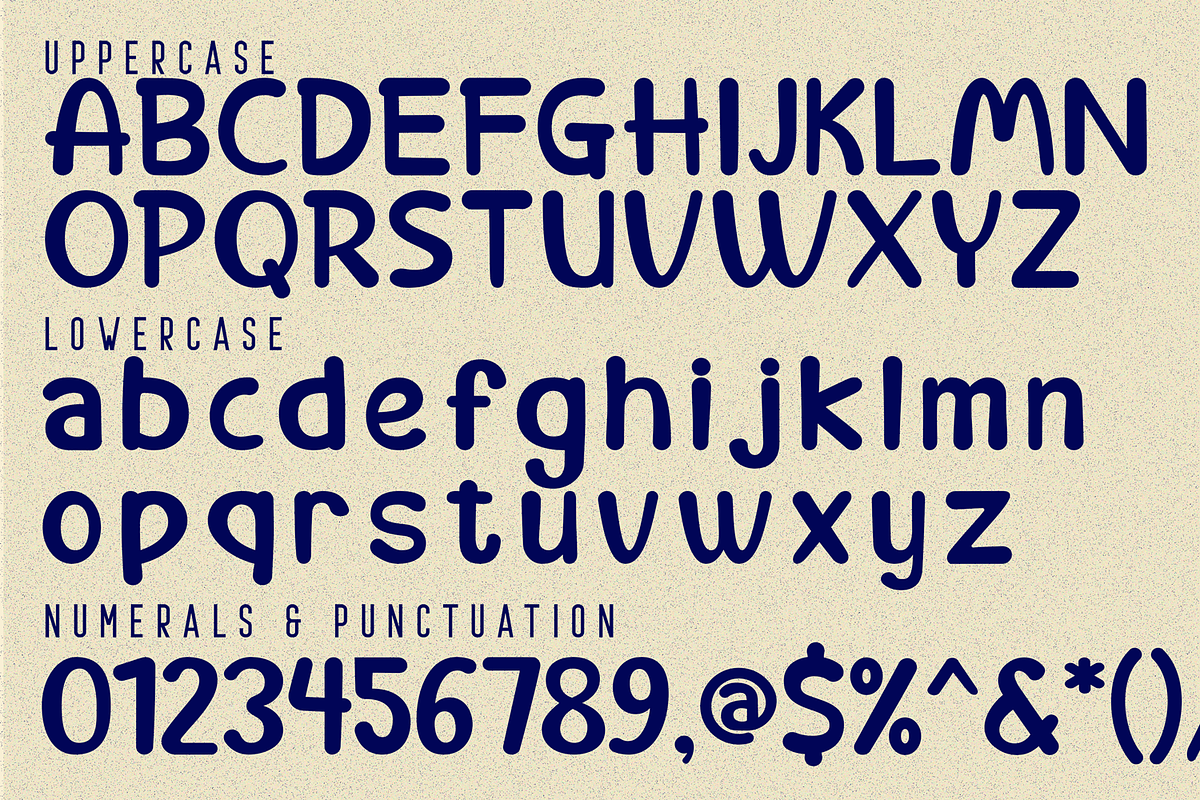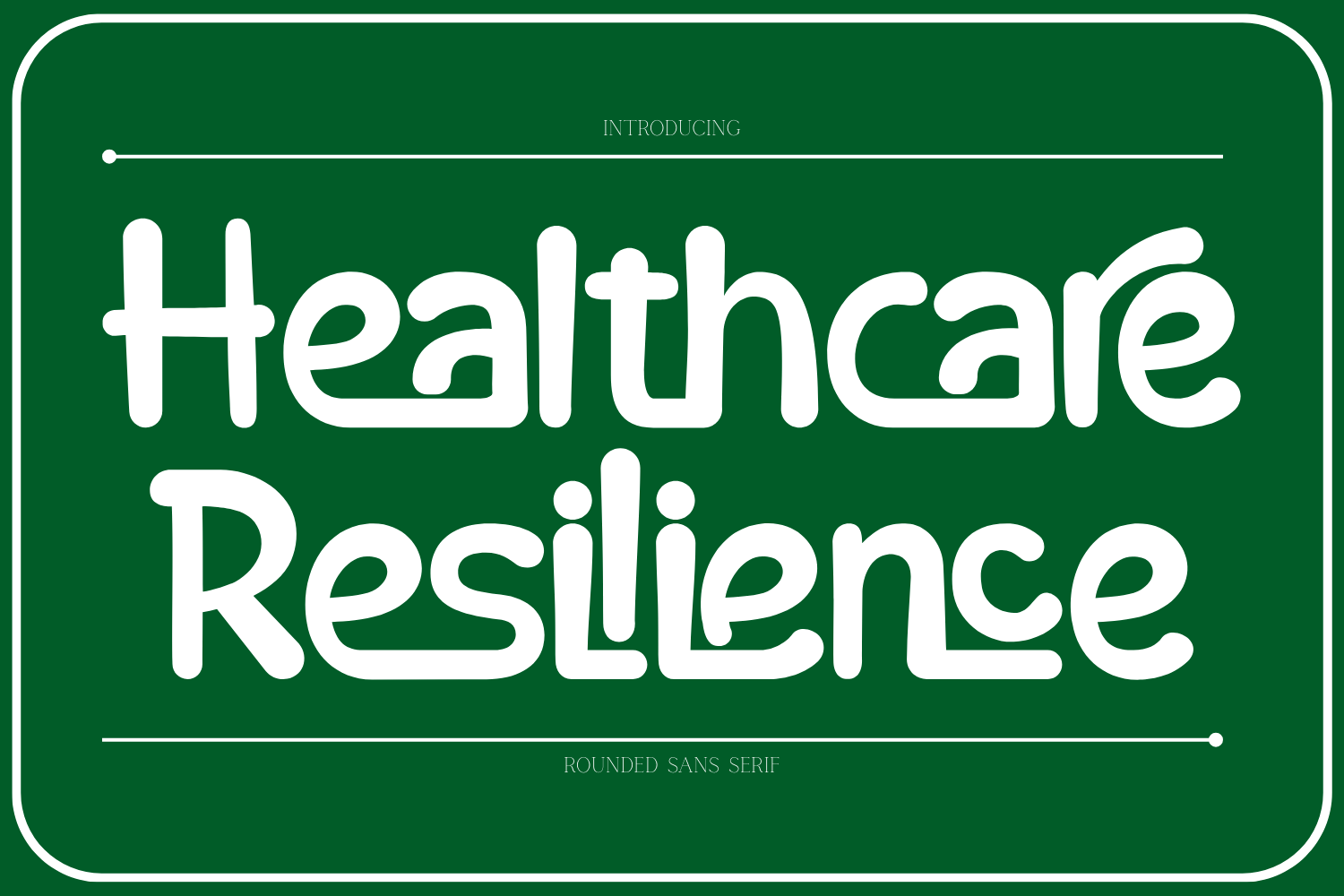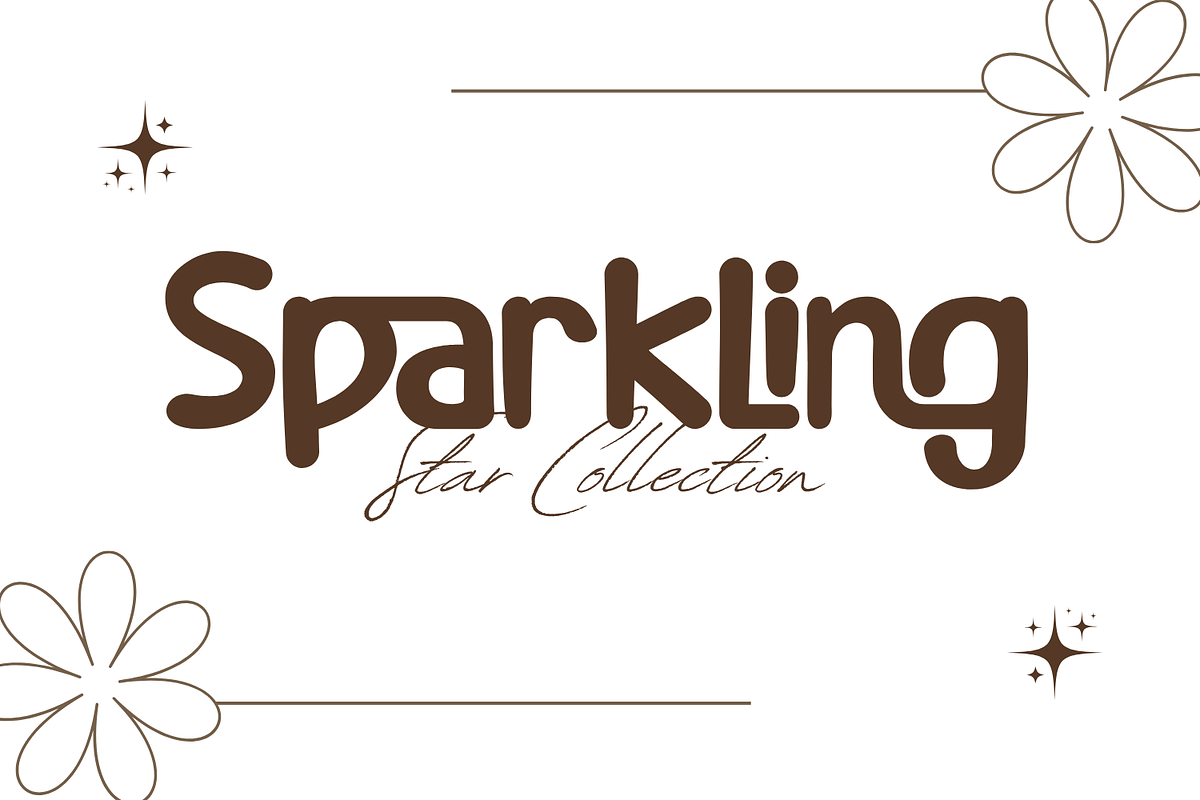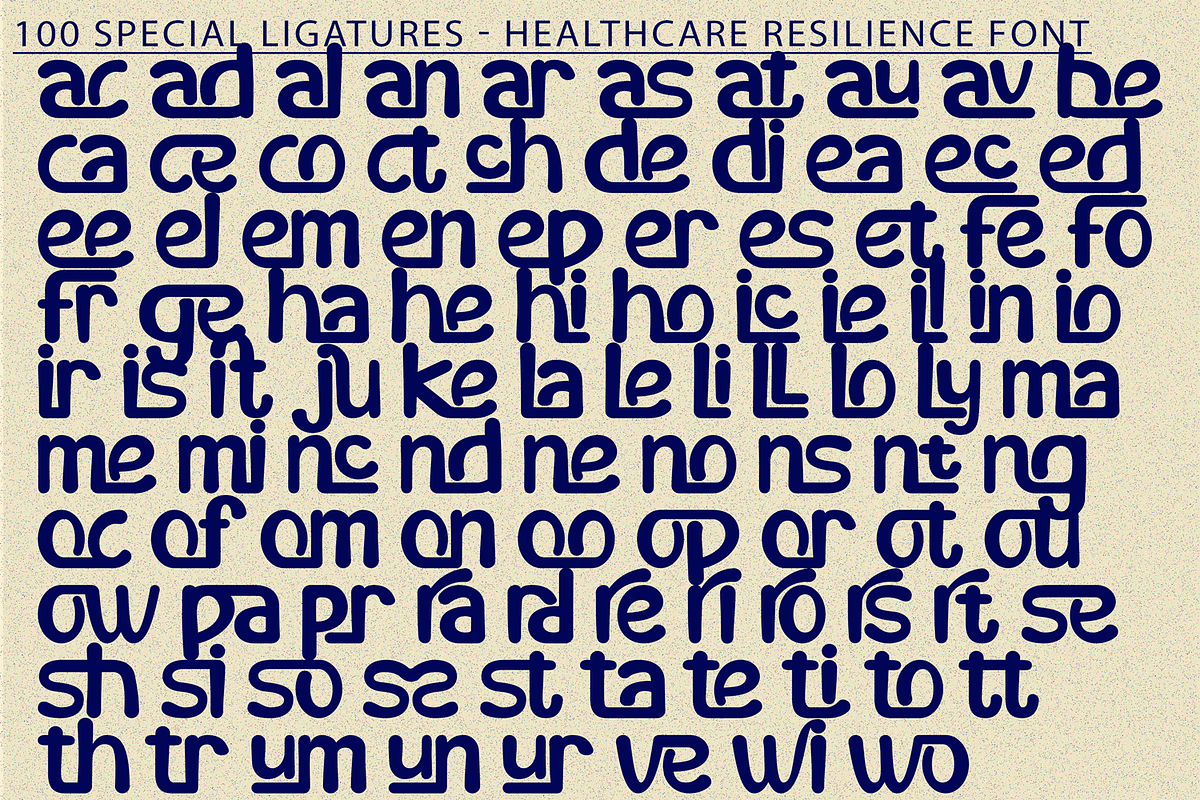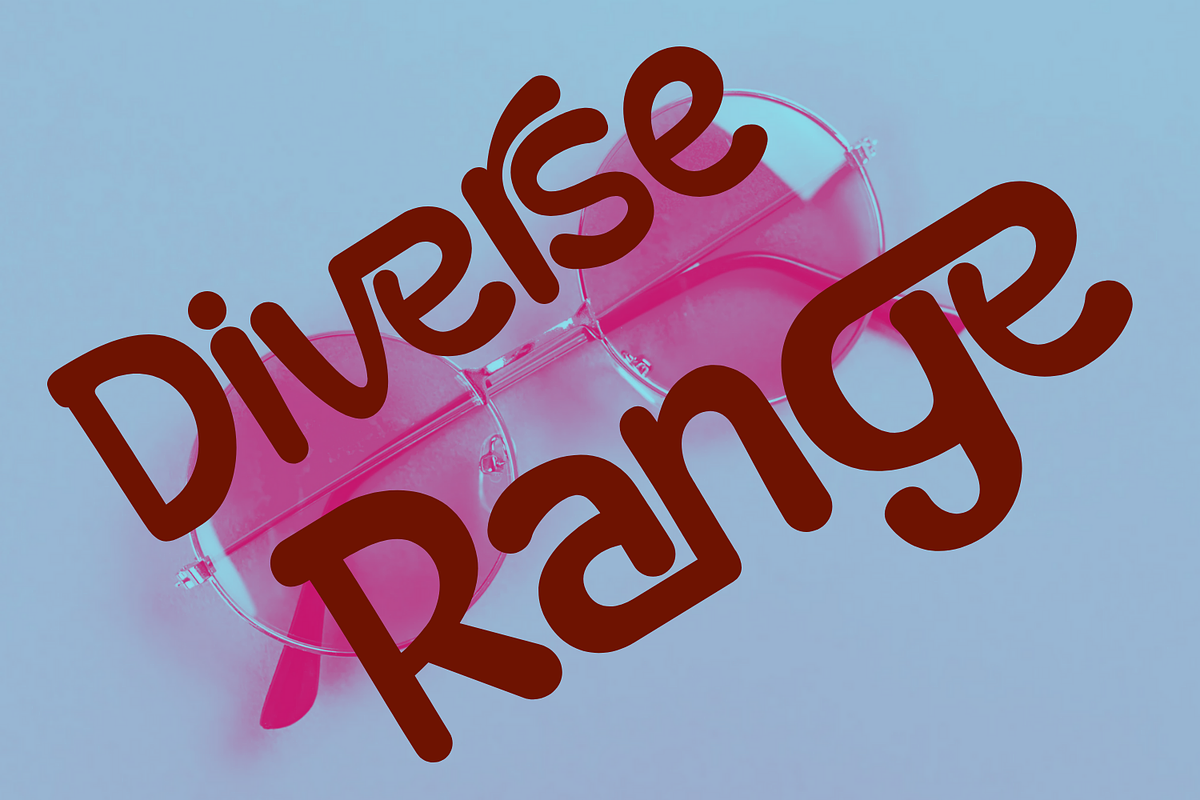
Healthcare Resilience Font
Healthcare Resilience Font – Friendly Rounded Sans-Serif Display Font, a friendly and modern rounded sans-serif display font designed to communicate warmth, clarity, and approachability. The letterforms feature smooth, rounded terminals and consistent stroke widths, creating a soft and welcoming visual tone. Its clean geometry combined with playful proportions makes the font highly legible while still maintaining a distinctive personality. Healthcare Resilience is ideal for projects related to healthcare, wellness, education, sustainability, children’s products, branding, packaging, UI design, posters, and social media graphics. The rounded shapes convey trust, positivity, and resilience, making it especially suitable for messages focused on care, community, and well-being.
🔤Features:
- Uppercase & Lowercase Letters
- Around 100 Special Ligatures & Alternates
- Accented Characters for multilingual support
🔤About 100 ligatures combined with Stylistic Alternates Font:
ac ad al an ar as at au av be ca ce ch co ct de di ea ec ed ee el em en ep er es et fe fo fr ge ha he hi ho ie ic il in io ir is it ju ke la le li ll lo ly ma me mi nc nd ne ng no nt ns oc of om on oo op or ot ou ow pa pr ra rd re ri ro rs rt se sh si so ss st ta te th ti to tr tt um un ur ve wi wo